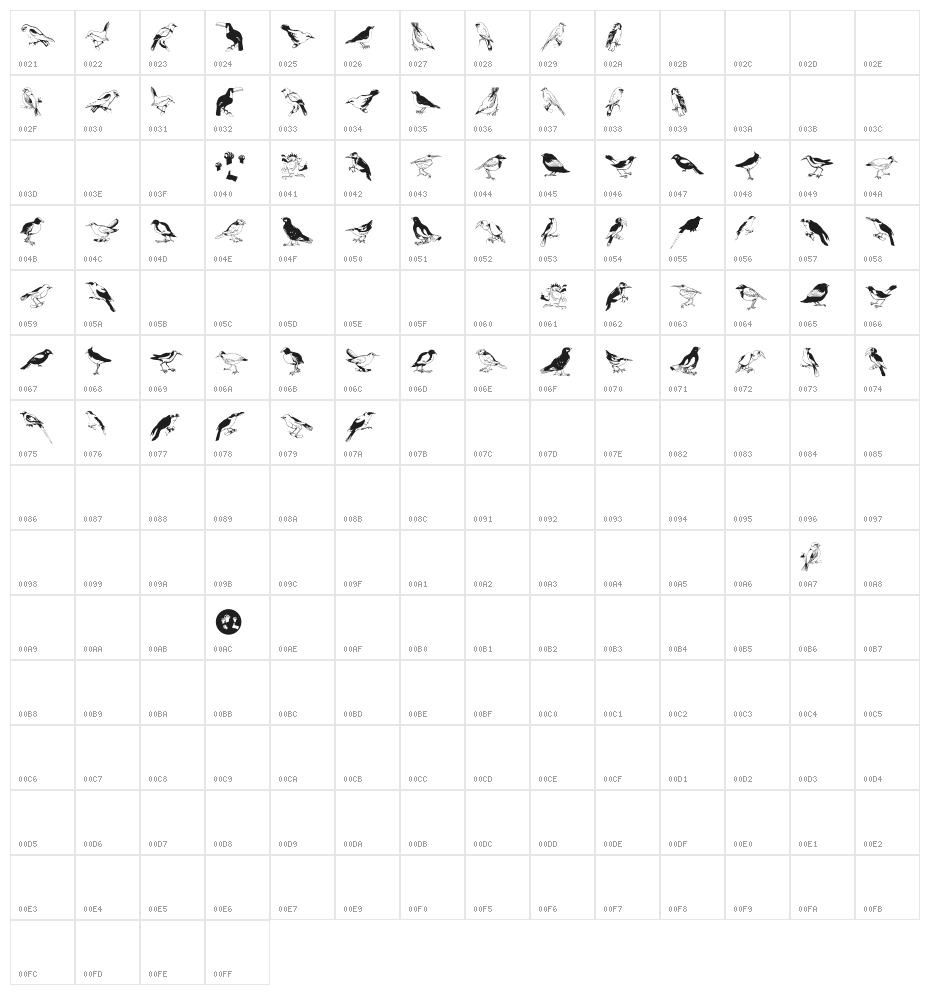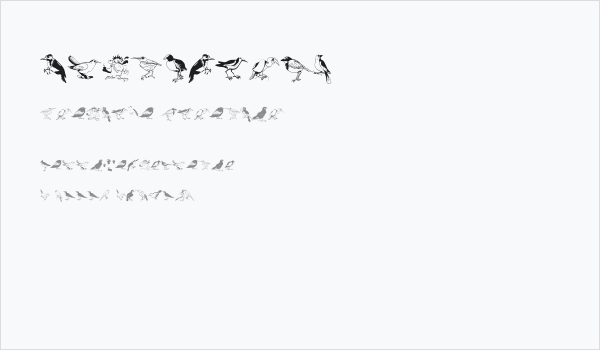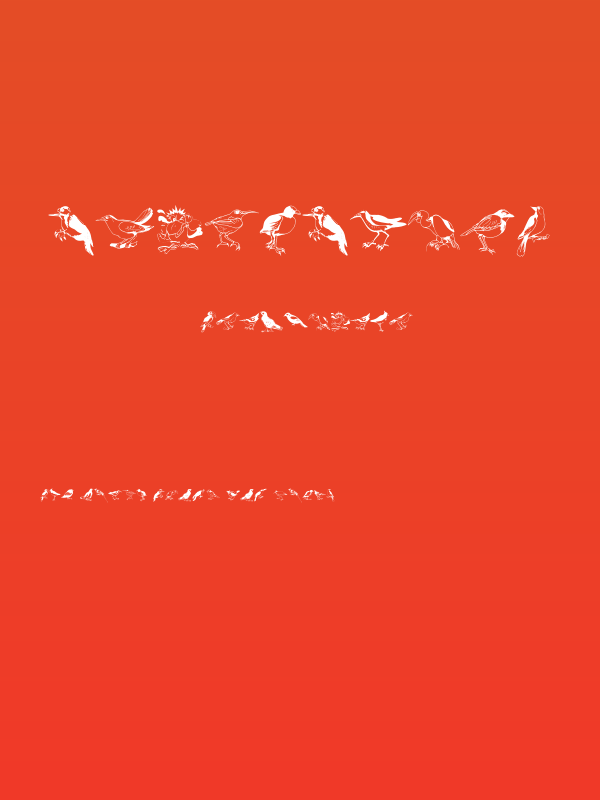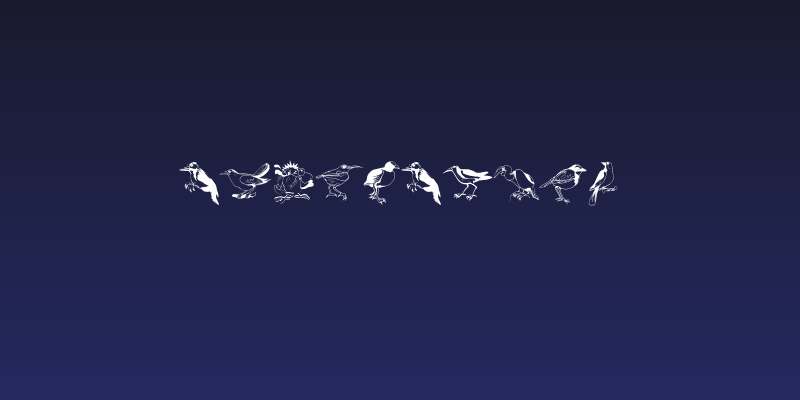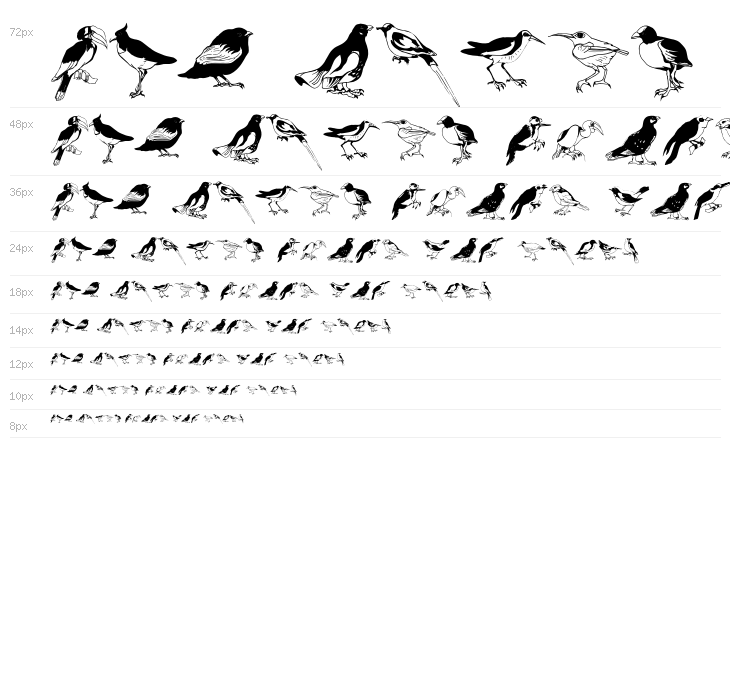
Blackbirds Font
Blackbirds Description
A decorative display set featuring hand-drawn blackbird illustrations in various poses, with high contrast and detailed line work. Each character is represented by a unique bird drawing, offering a whimsical and artistic style rather than traditional letterforms.
Overall StyleDecorative, Artistic, Whimsical
Use CaseLogos, Decorative titles, Posters, Themed graphics
Proposed ProjectsChildrenÒ€ℒs books, nature-themed posters, educational materials, creative branding, decorative headings.